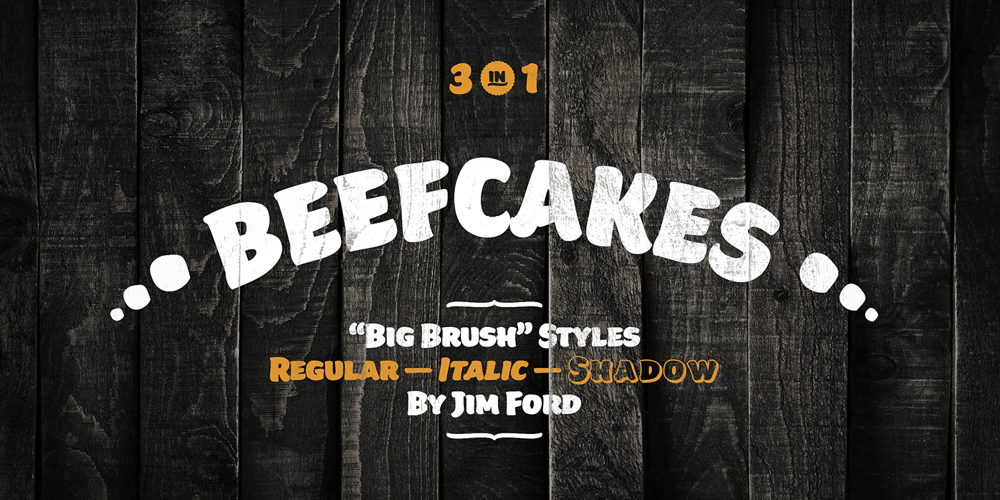
Beefcakes Font Family was designed by Jim Ford and published by Monotype. Beefcakes contains 3 styles and family package options. Inspired by butcher shop and supermarket window advertising, Beefcakes™ emulates “big brush” style lettering – with a contemporary twist. Not for the typographically timid, this is a design that makes a powerful and friendly statement in print and on screen. Advertising headlines, posters, cover art, menus and packaging are all in Beefcakes’ wheelhouse. While it would be a little crowded on small screens, big type in web sites and games are also part of Beefcakes kit-bag. Drawn by Jim Ford, Beefcakes’ big, sassy and playful shapes are sure to grab attention. Its letterforms are dense and sturdy – yet soft and welcoming as your mom’s old couch. The suite of Beefcakes fonts is available as all-caps designs with small caps, in roman, italic and shadow flavors. As a nod to the typeface’s inspiration, Beefcakes fonts also include a set of decorative abbreviations (lb, oz, kg, in, etc.) for bold signage and showcard-style displays.